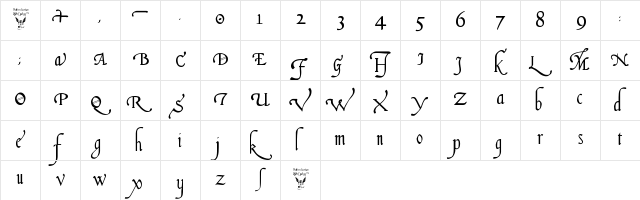
Italian Cursive, 16th Century Regular
Design Context for Italian Cursive, 16th Century Typeface
Italian Cursive, 16th Century brings a calligraphic fluidity to the page — its connecting strokes and expressive curves give it an unmistakably human quality.
Font Pairing: Combine Italian Cursive, 16th Century with a simple geometric sans for maximum contrast — the tension between flowing curves and clean structure is a classic typographic pairing.
Pro Tip: Pair Italian Cursive, 16th Century with a clean sans-serif for supporting text. The contrast between fluid script and geometric structure creates an elegant typographic hierarchy.